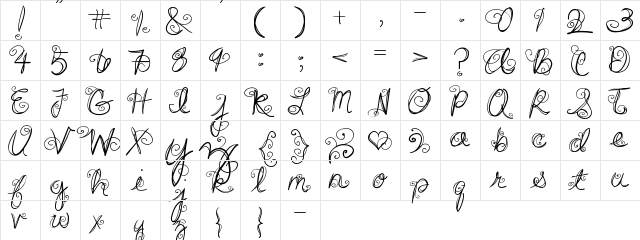
DJB SWIRL ME AROUND Regular
| Designer | Darcy Baldwin (djbfontography) |
Design Context for DJB SWIRL ME AROUND Typeface
DJB SWIRL ME AROUND is built around its visual character rather than neutral utility — its distinctive forms are designed to make an impression at display sizes.
Font Pairing: Pair with a clean neutral sans-serif for body copy to let DJB SWIRL ME AROUND's character lead without overwhelming the composition.
Pro Tip: Treat DJB SWIRL ME AROUND as the centrepiece of your typographic hierarchy. One strong heading set in a decorative face can carry an entire layout.